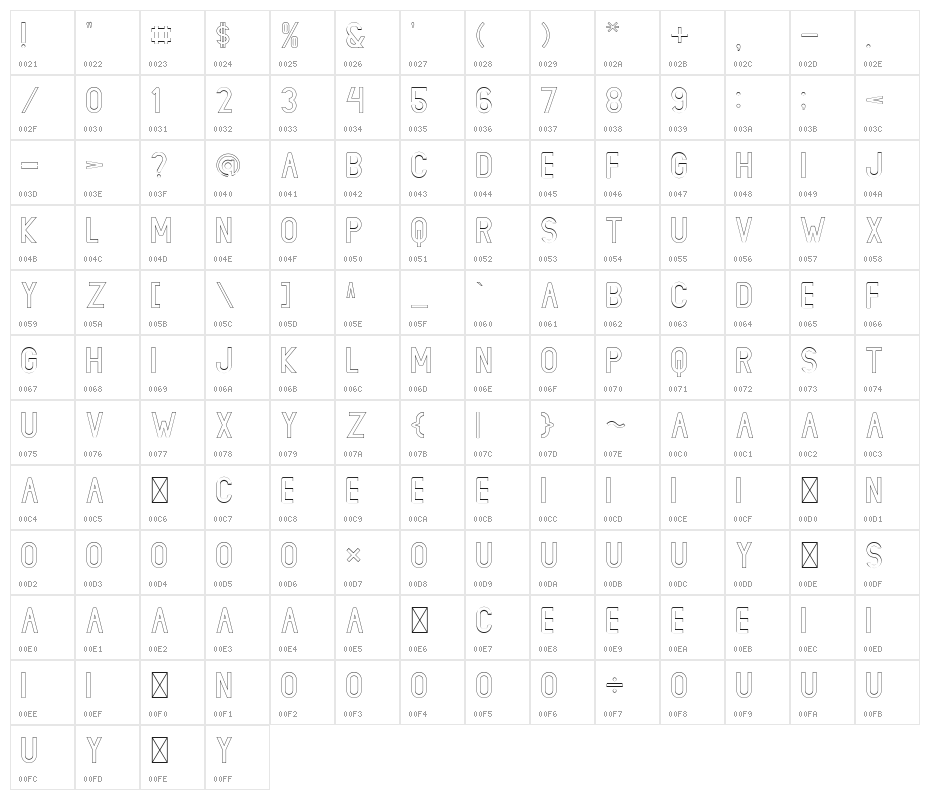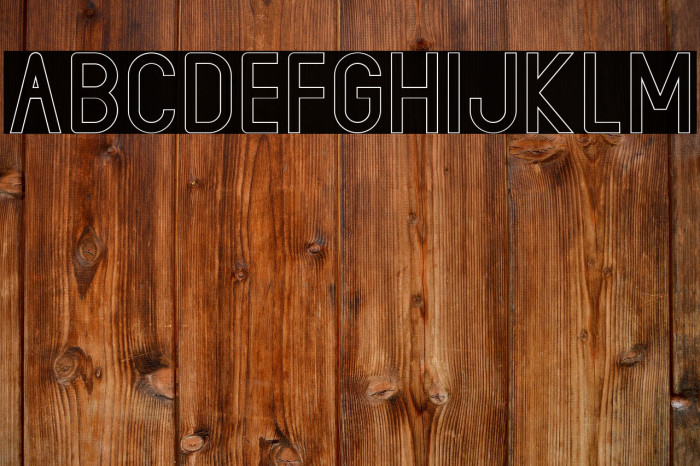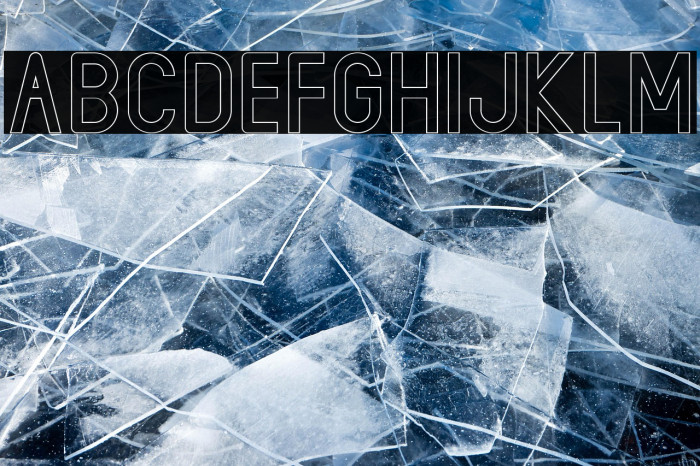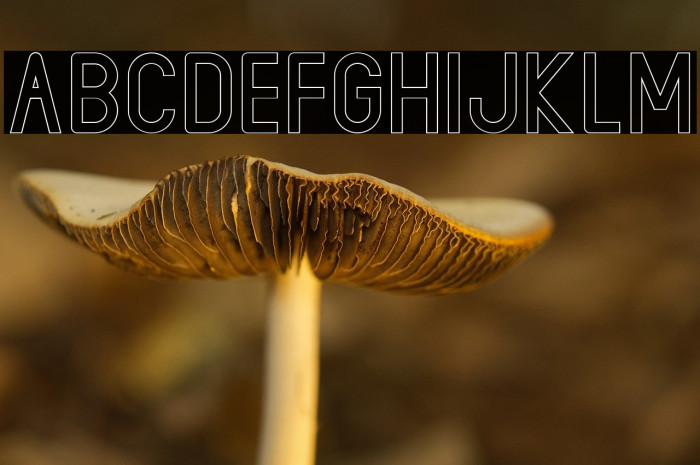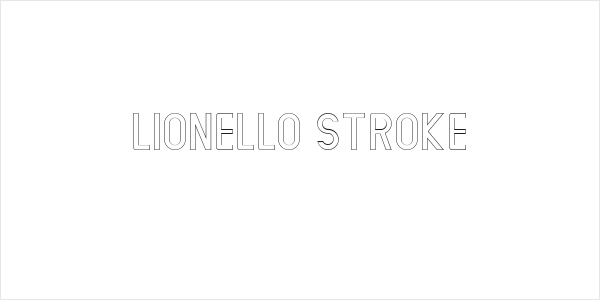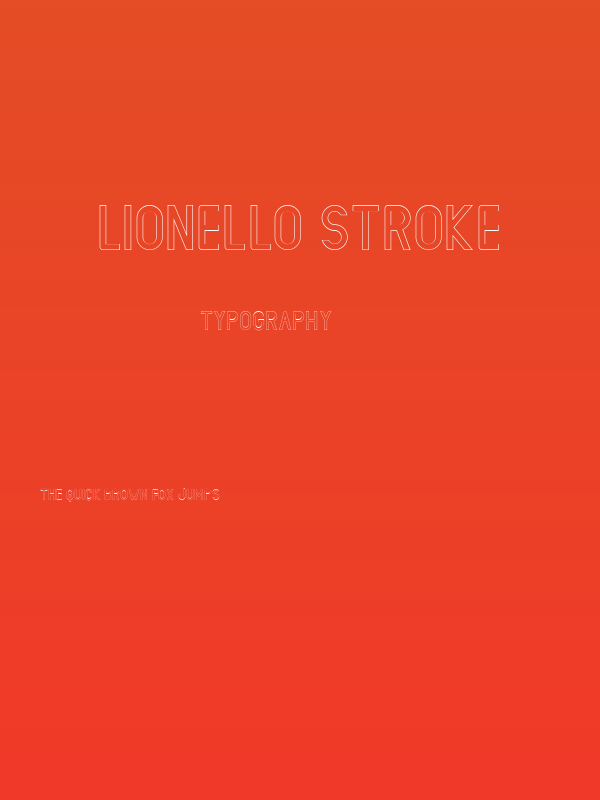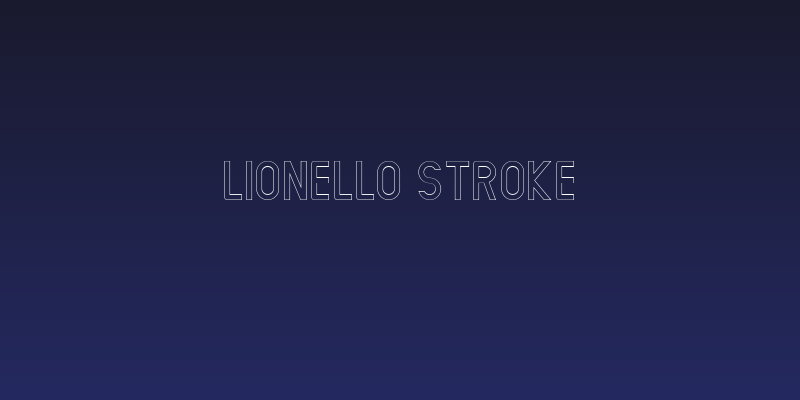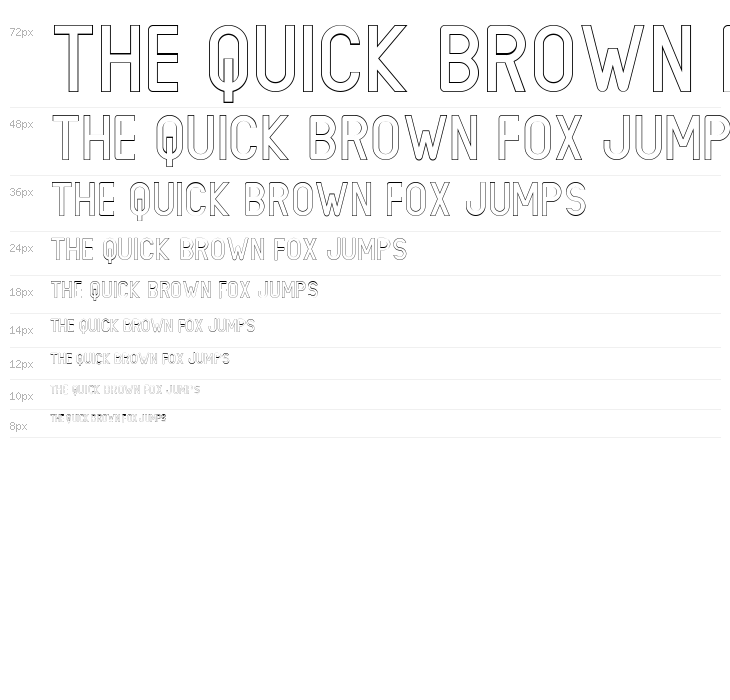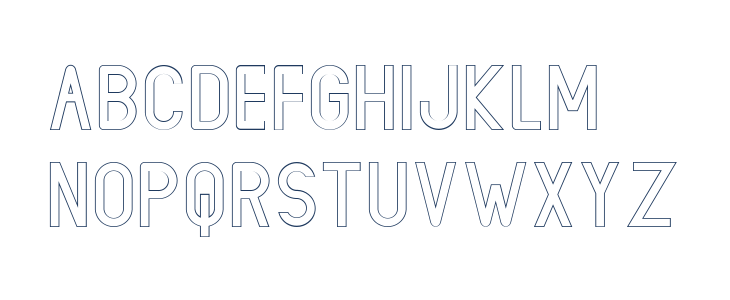
LIONELLO Stroke Font
LIONELLO Stroke Description
This font features a modern, geometric design with clean, sharp lines and a distinct outline style. The uppercase letters are bold and structured, providing a sense of stability and strength. The numerals and special characters maintain this cohesive look, ensuring versatility across various applications. The font's open, airy design makes it suitable for both digital and print media, offering a contemporary aesthetic that stands out. Its unique outline style adds a layer of sophistication, making it ideal for creative projects that require a bold statement.
| Proposed Projects | Ideal for branding, posters, headlines, and digital media where a strong, modern look is desired. |